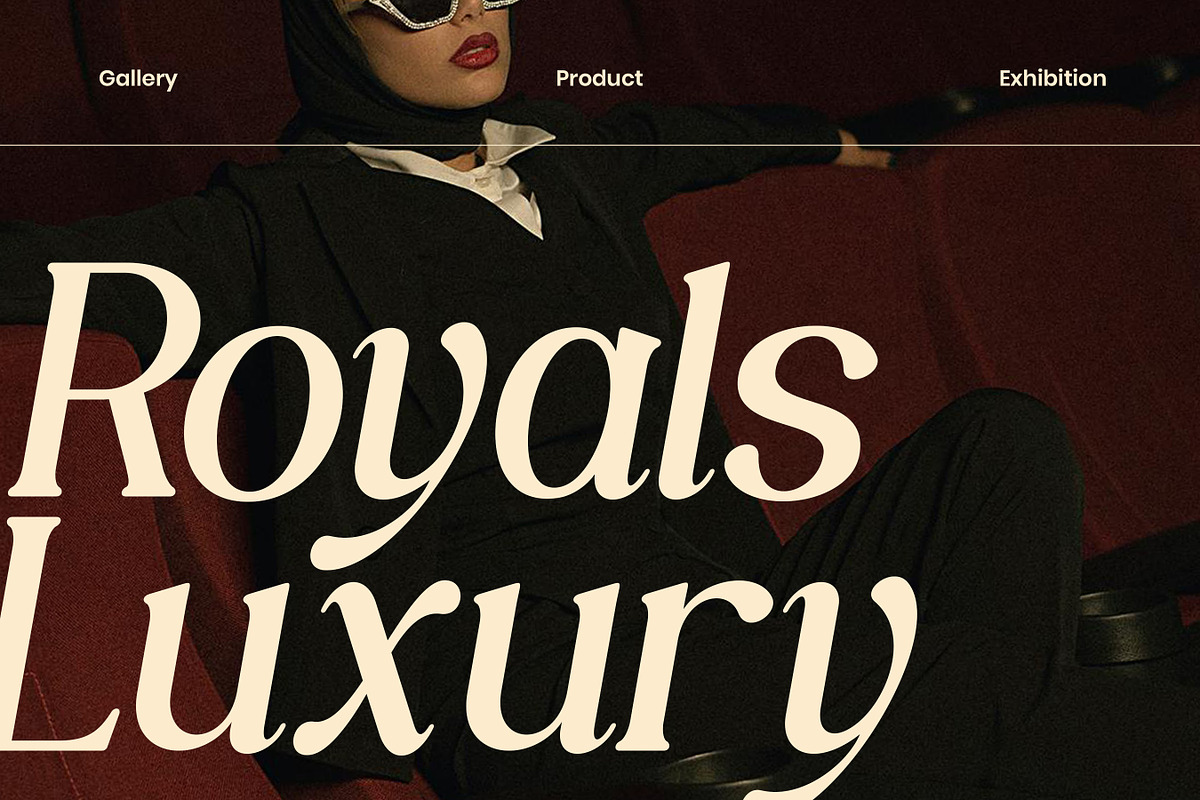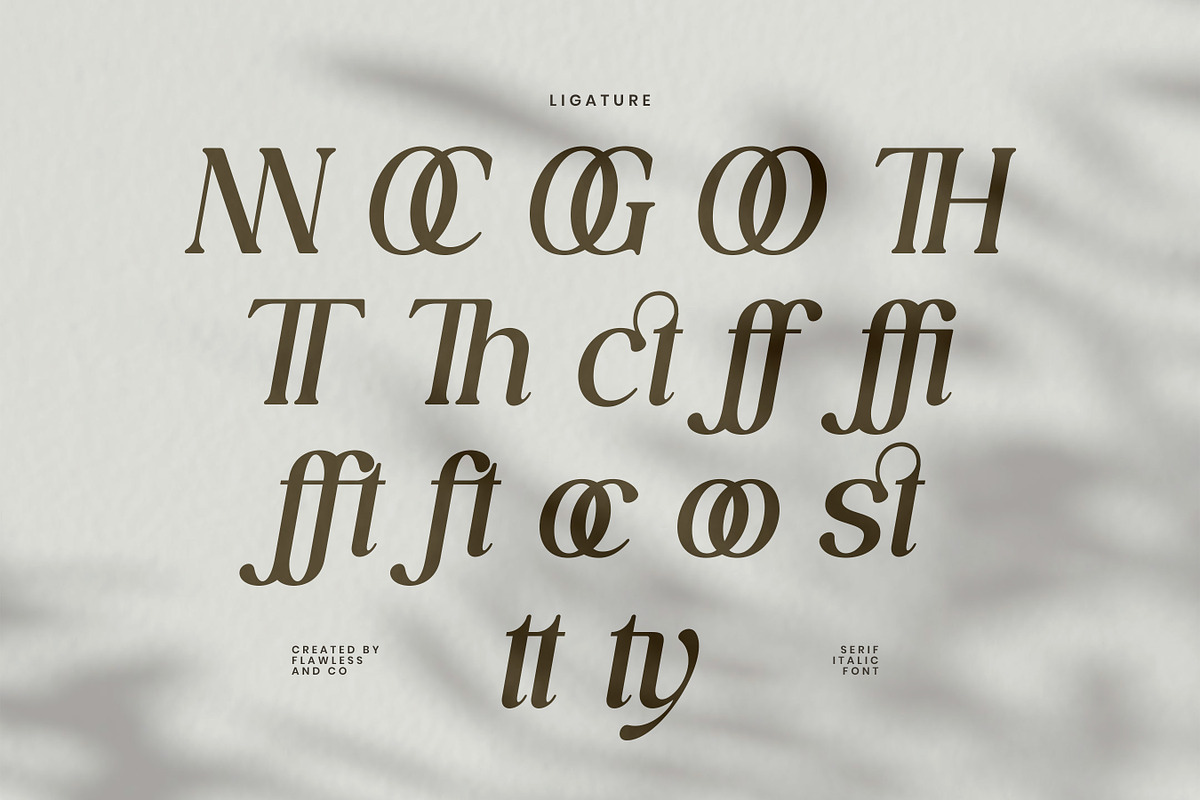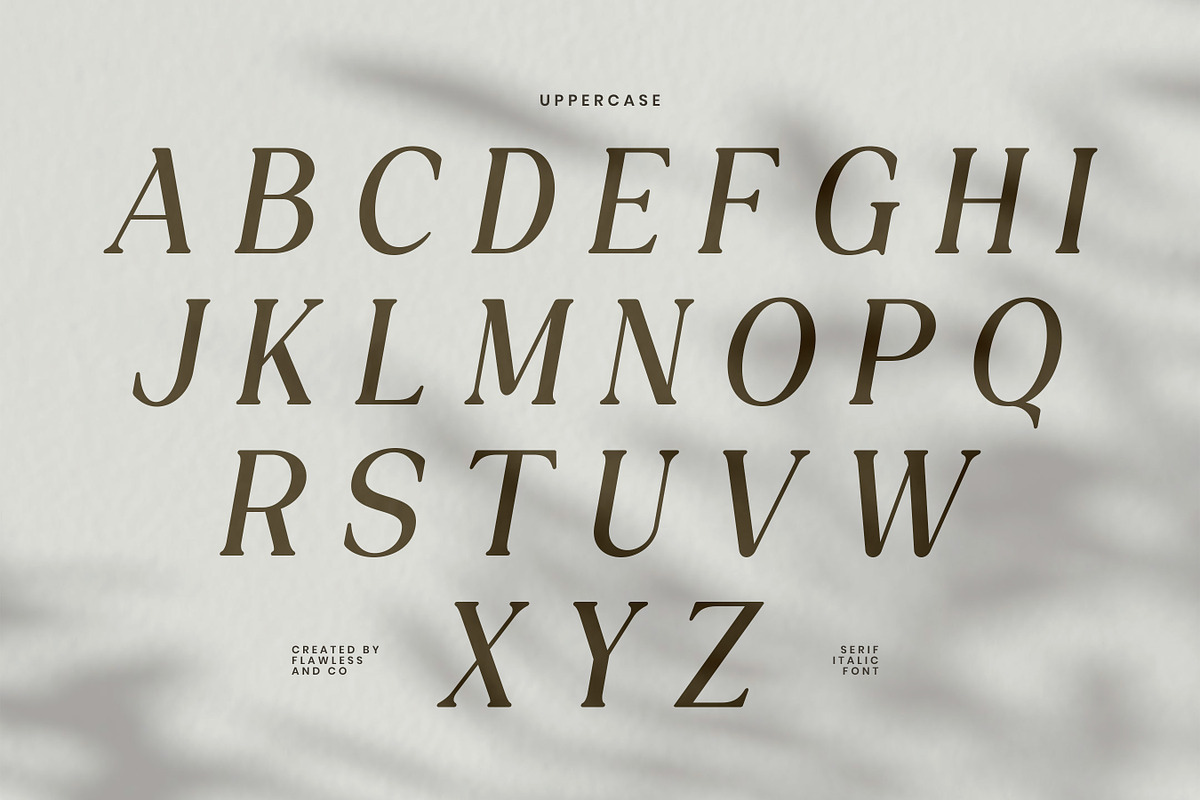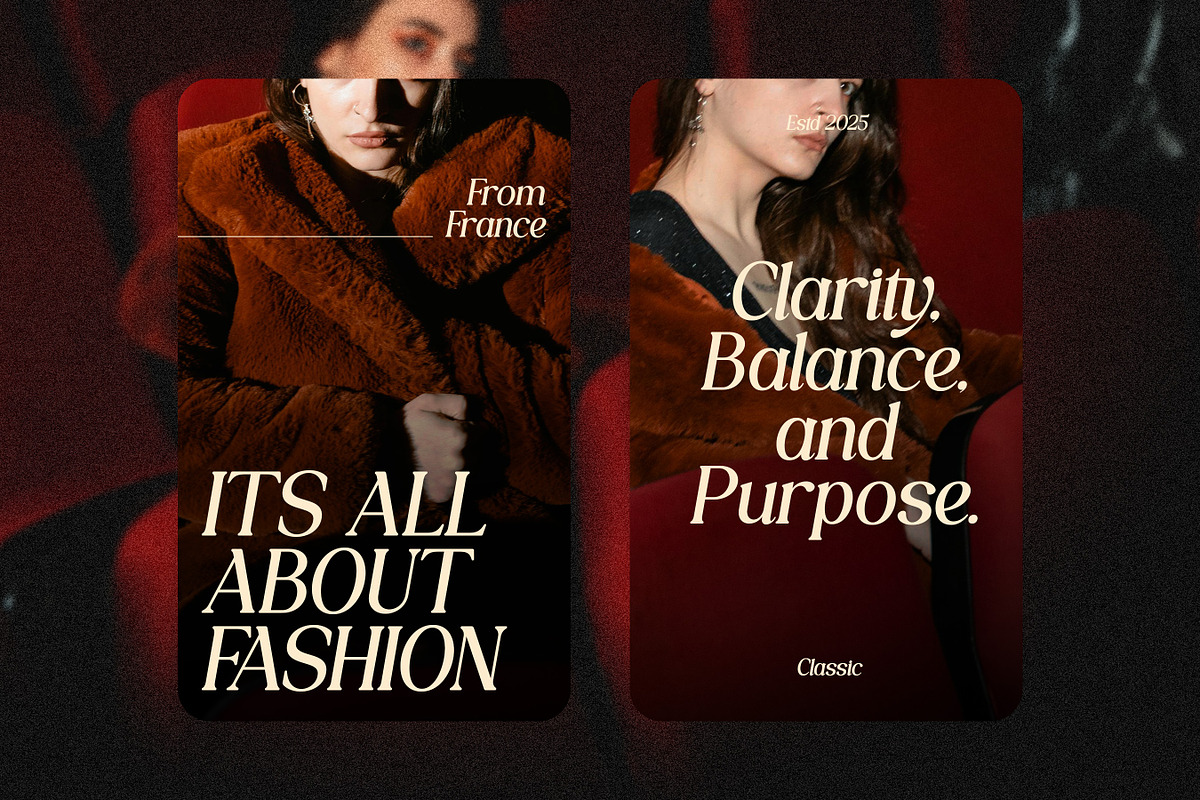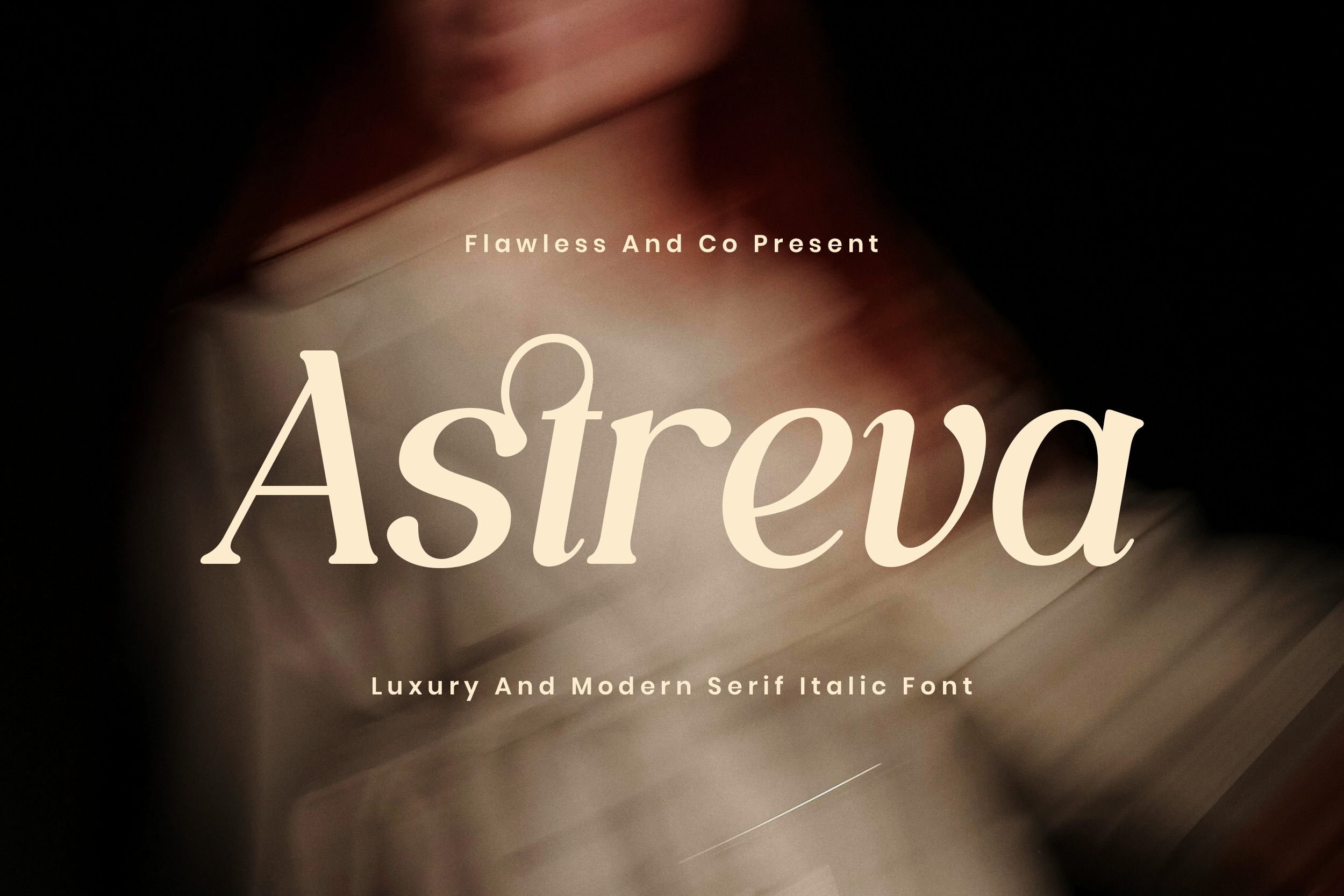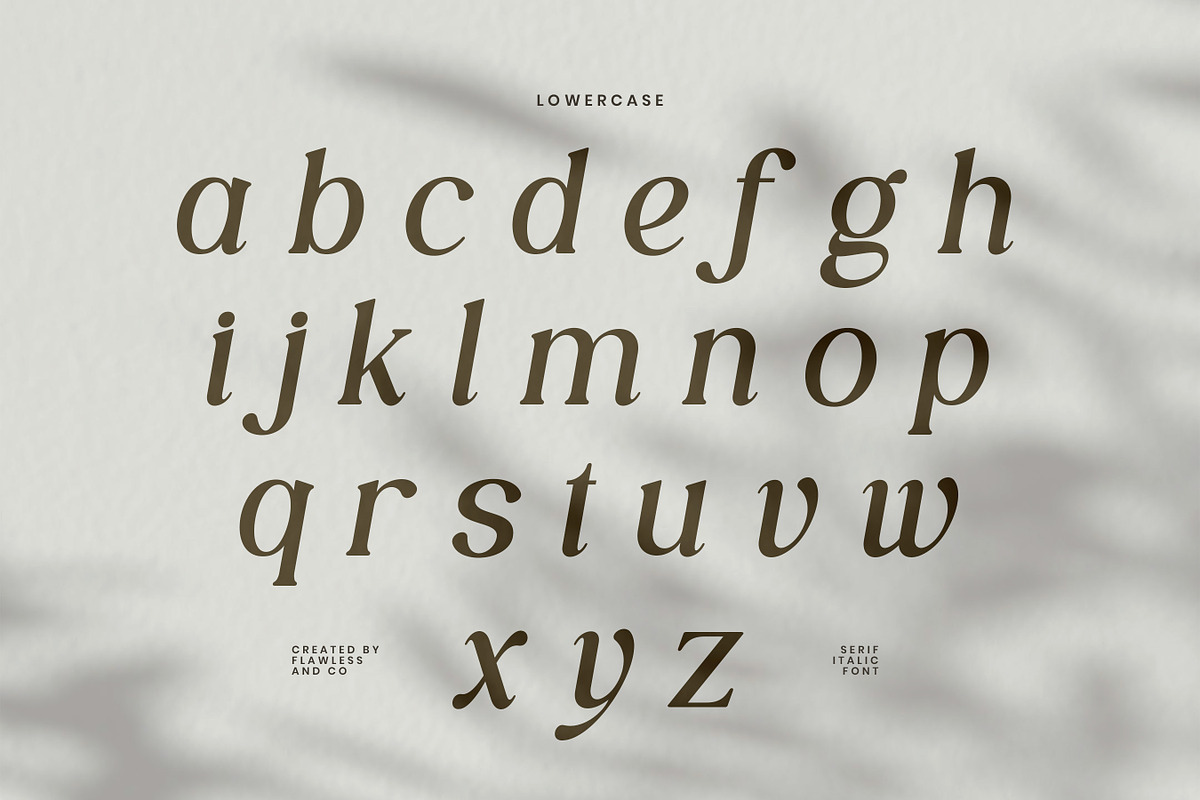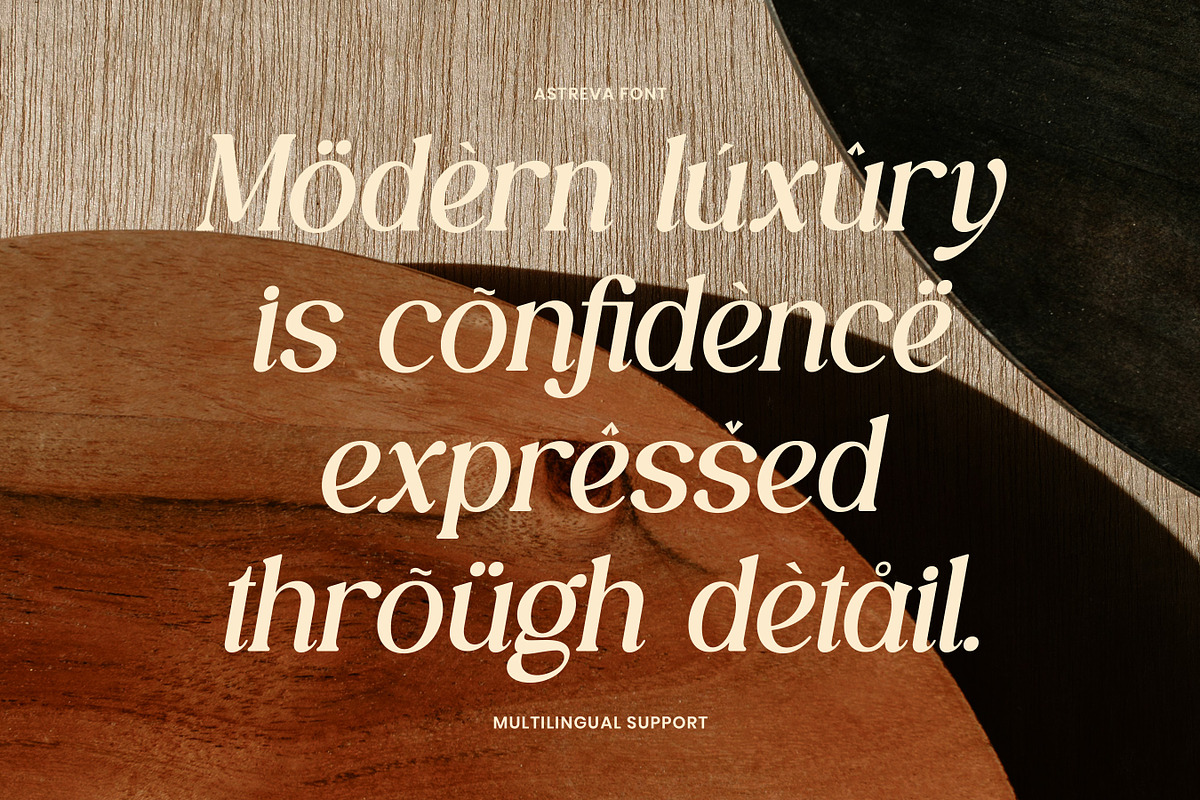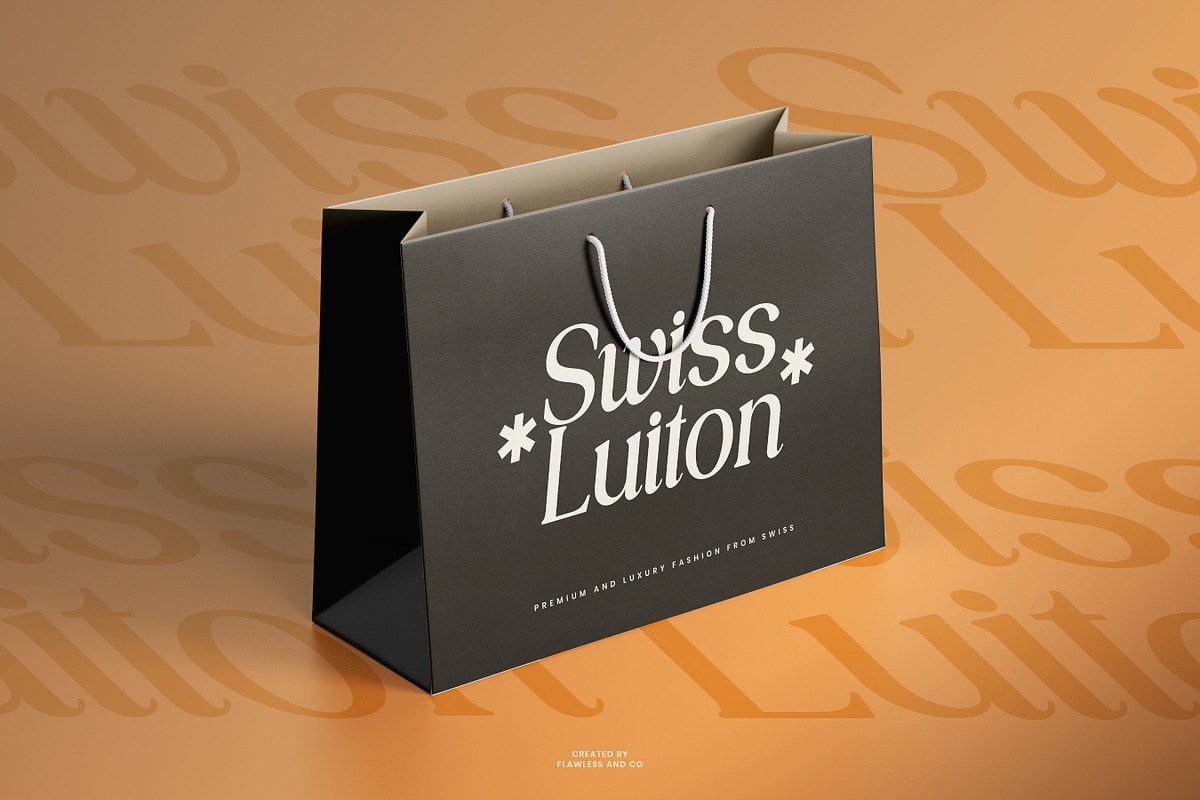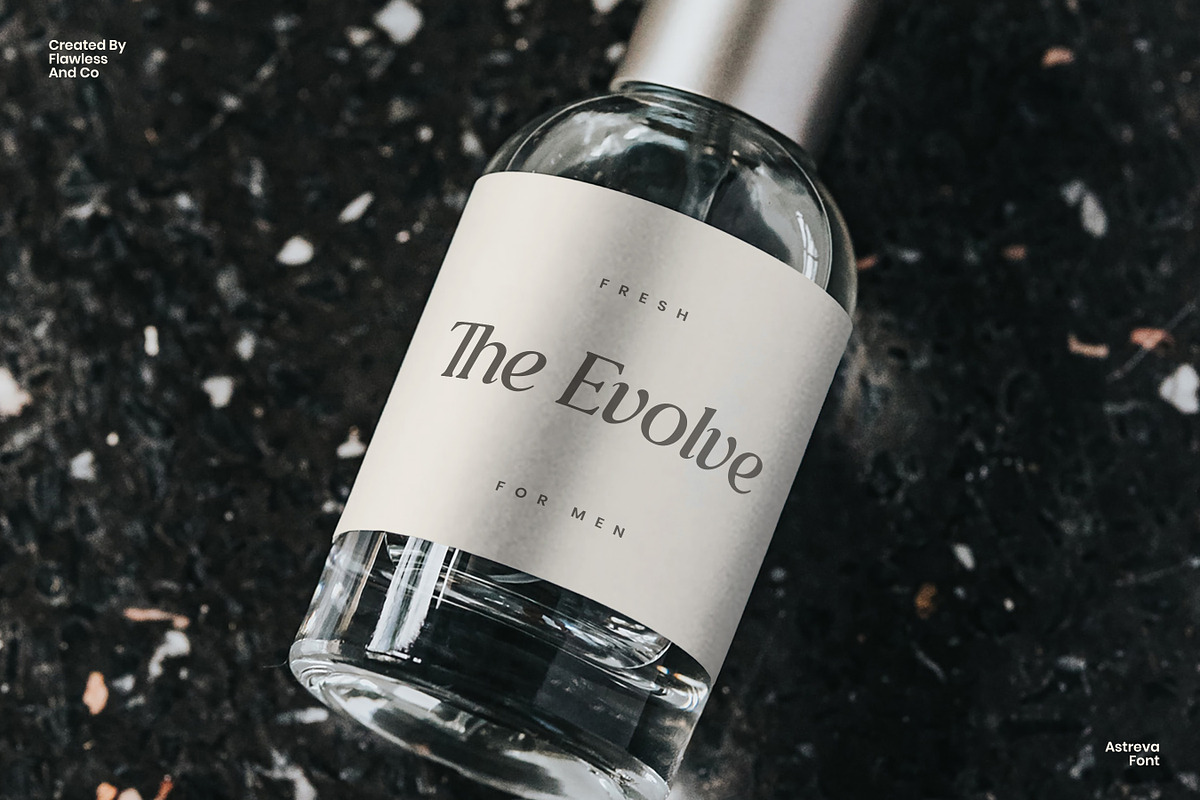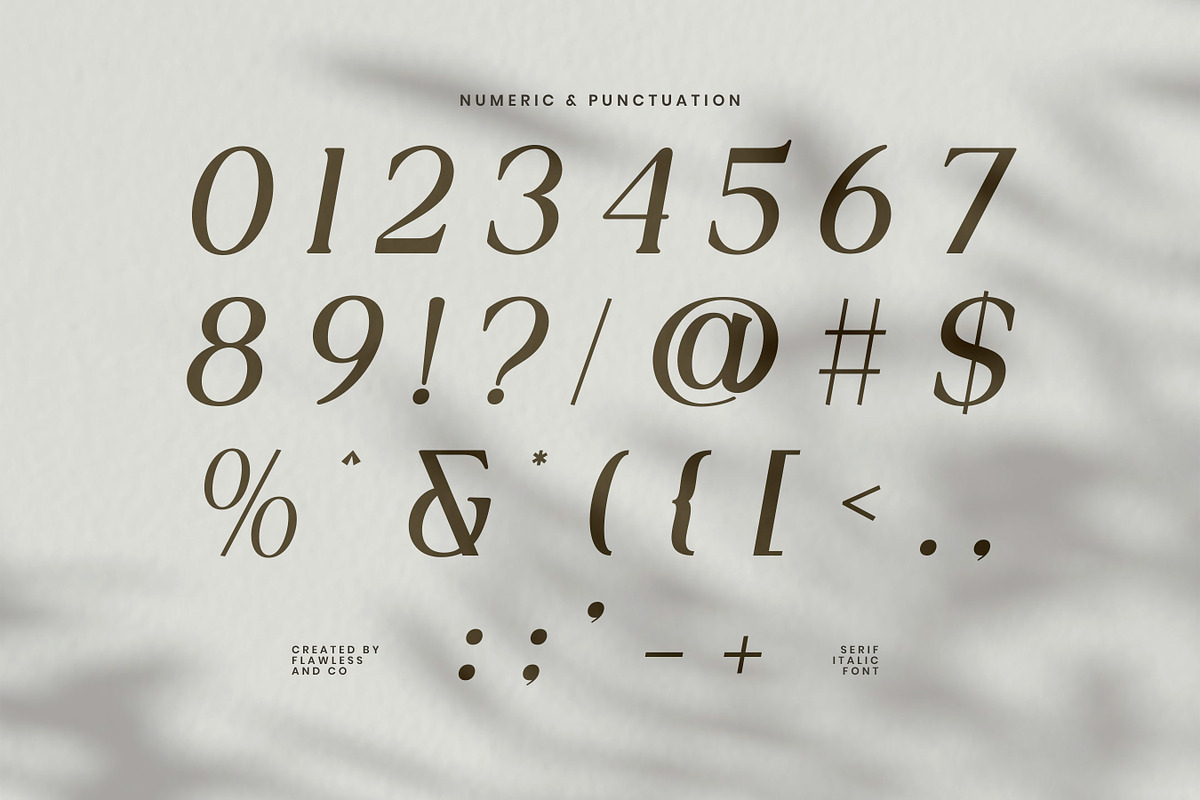
Astreva - Modern Serif Font
Astreva is a luxury modern serif font that blends timeless elegance with a contemporary aesthetic. Featuring graceful curves, refined serif details, and stylish italic forms, Astreva delivers a sophisticated visual tone that feels premium and exclusive.
Who Should Use Astreva?
Astreva is perfect for designers, brand creators, and creative professionals who want to express elegance and refinement through typography. It’s an ideal choice for projects that demand a luxurious and polished appearance.
Why Choose Astreva for Brand and Logo Projects?
Astreva offers a perfect balance between classic serif elegance and modern design sensibility. Its refined letterforms enhance brand perception, making logos look premium, fashionable, and timeless.
Suitable for:
- Luxury branding and logo design
- Fashion and beauty brands
- Editorial and magazine layouts
- Wedding and event designs
- Packaging and product branding
- Social media and promotional graphics
- High-end creative projects